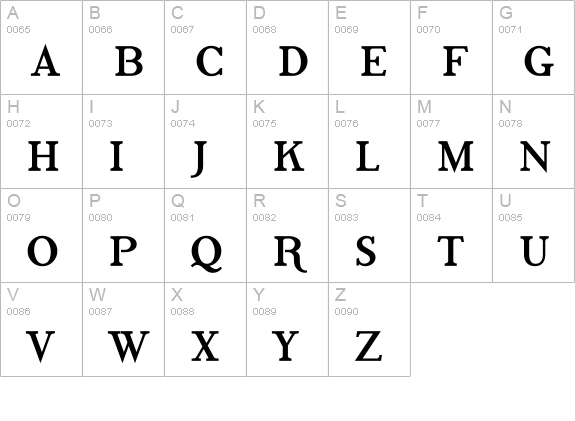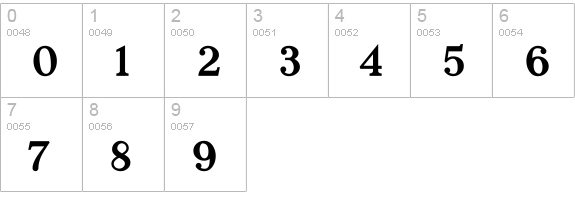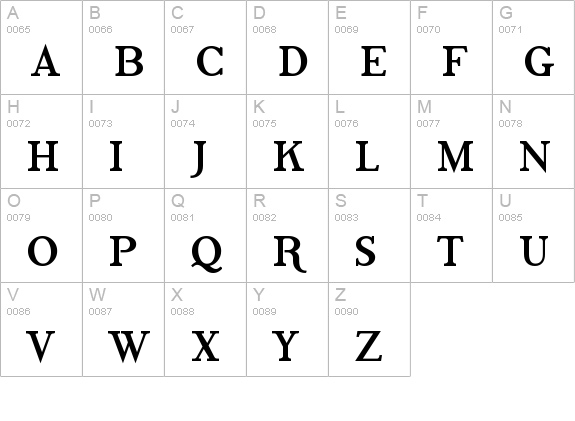
Phosphorus Triselenide Font Details
Introducing Phosphorus Triselenide font, a stunning and versatile typeface that exudes elegance and sophistication. This unique font features intricate details and a modern aesthetic that will elevate any design project to the next level. Phosphorus Triselenide font is perfect for a wide range of applications, from branding and packaging to web design and social media graphics. Its stylish and contemporary look will make your text stand out and leave a lasting impression on your audience. Best of all, Phosphorus Triselenide font is available for free download at FontsMarket.com. This means you can easily access this premium font without any cost, making it a valuable addition to your font library. Don't miss out on the opportunity to enhance your designs with the exquisite Phosphorus Triselenide font today!